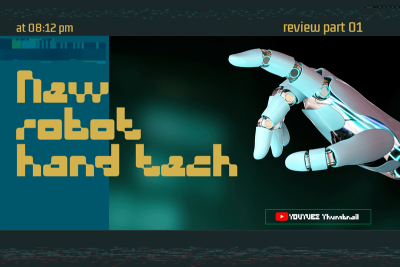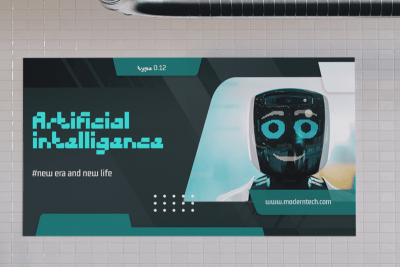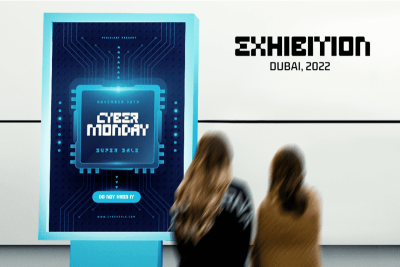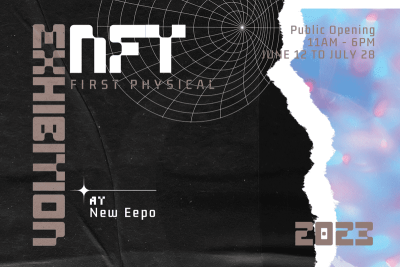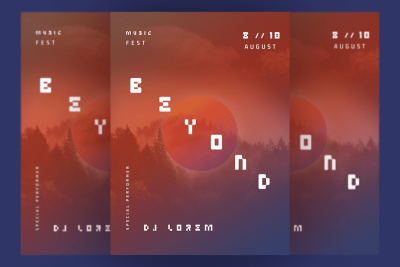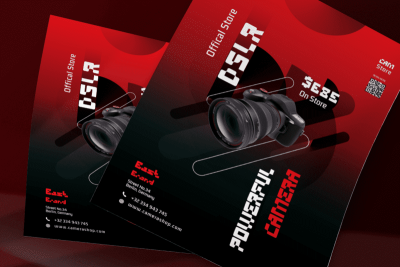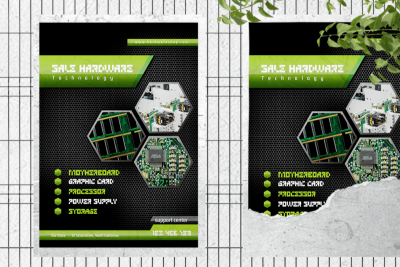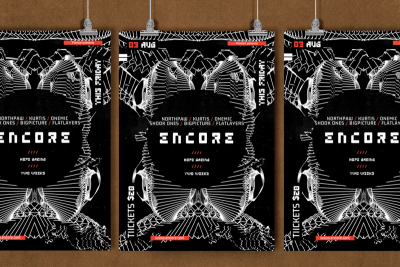
Futuristic Font The Glitch offers a bold and experimental design that redefines the boundaries of digital typography. With its pixelated edges and irregular contours, this font evokes a futuristic and edgy feel, perfect for projects inspired by digital disruption, cyberpunk aesthetics, and innovative technology. Its unique style adds a dramatic and modern flair, ensuring your designs stand out in a competitive market.
The Glitch is versatile and highly effective for various design needs. Whether used for branding, headlines, or digital art, its bold design captures attention instantly. This font is especially popular among gaming companies, tech startups, and digital artists who wish to convey innovation and creativity. Additionally, its distinct appearance complements futuristic themes in marketing materials and video game designs.
Futuristic Font The Glitch Ideal for Creative and Futuristic Designs
The Futuristic Font The Glitch is a game-changer for designers working on tech-forward projects. Its fragmented and glitch-inspired aesthetic pairs seamlessly with projects requiring a futuristic edge, such as sci-fi posters, electronic music album covers, or virtual event promotions. Furthermore, the font is easy to integrate into various digital platforms, maintaining clarity and impact across screens and print.
With its striking appearance, The Glitch excels in creating memorable logos and eye-catching advertisements. Transitioning between creative formats is effortless, ensuring consistency and coherence in all your visual assets. Designers who aim to push boundaries and innovate visually will find this font indispensable in their toolkit.
Moreover, The Glitch enhances immersive experiences, making it ideal for futuristic storytelling and augmented reality projects. Its bold presence resonates with audiences, leaving a lasting impression. The font’s adaptability ensures it remains a top choice for projects aiming to captivate and inspire.
In conclusion, The Glitch delivers a bold and futuristic typography experience that elevates any project. Its distinctive style, combined with versatility, makes it a perfect choice for modern and creative designs.